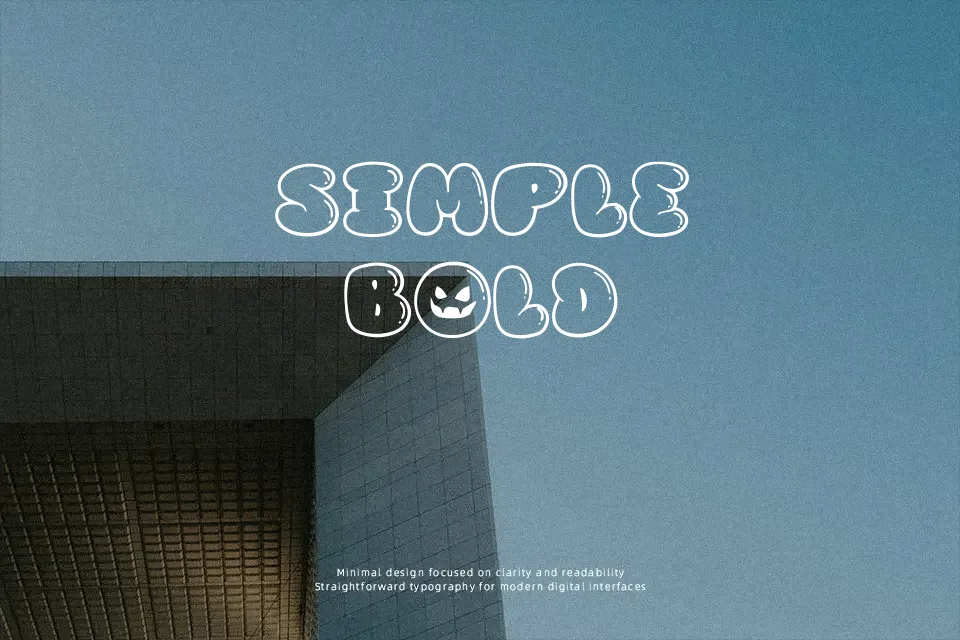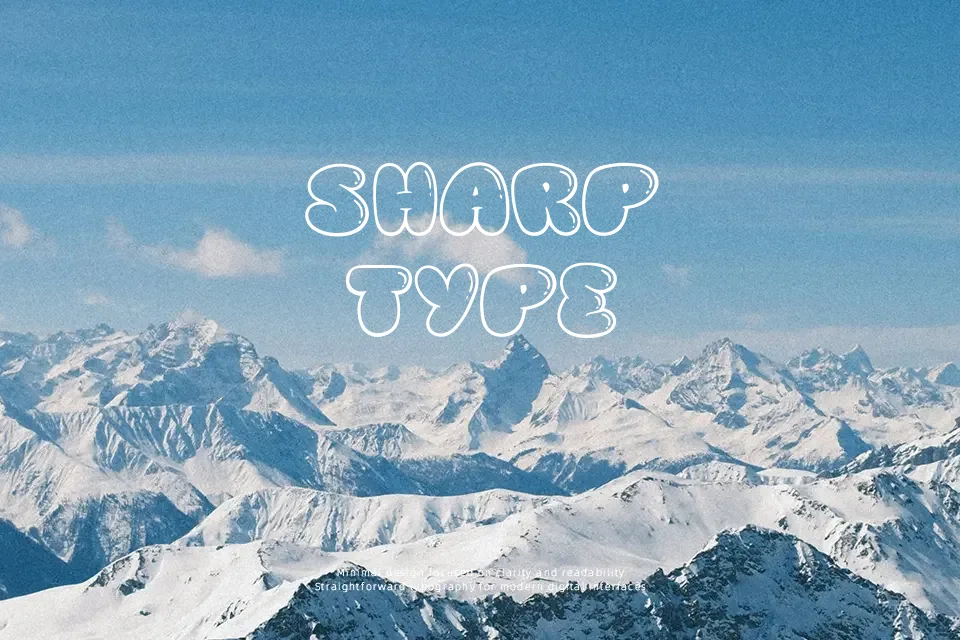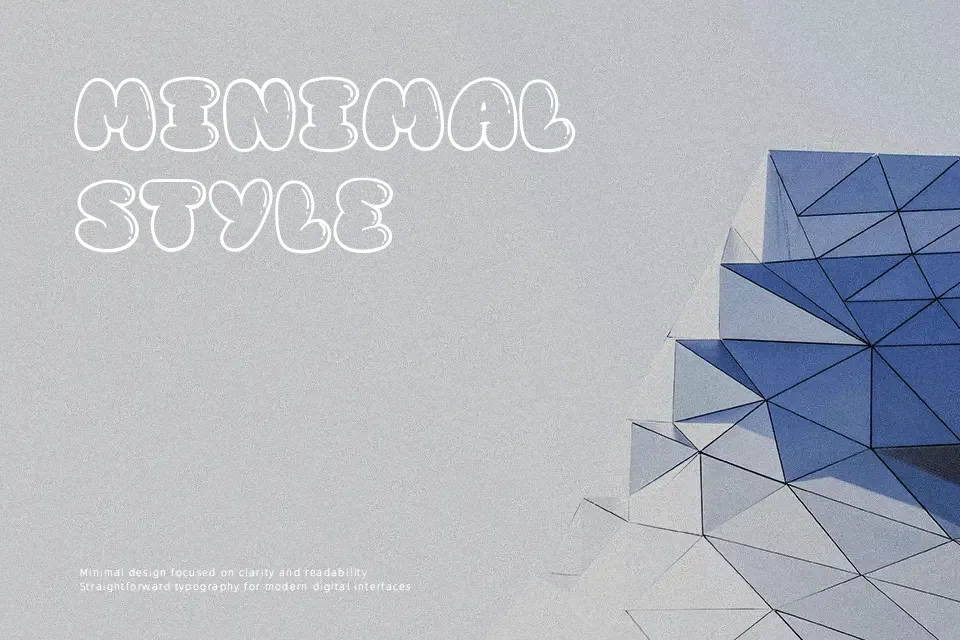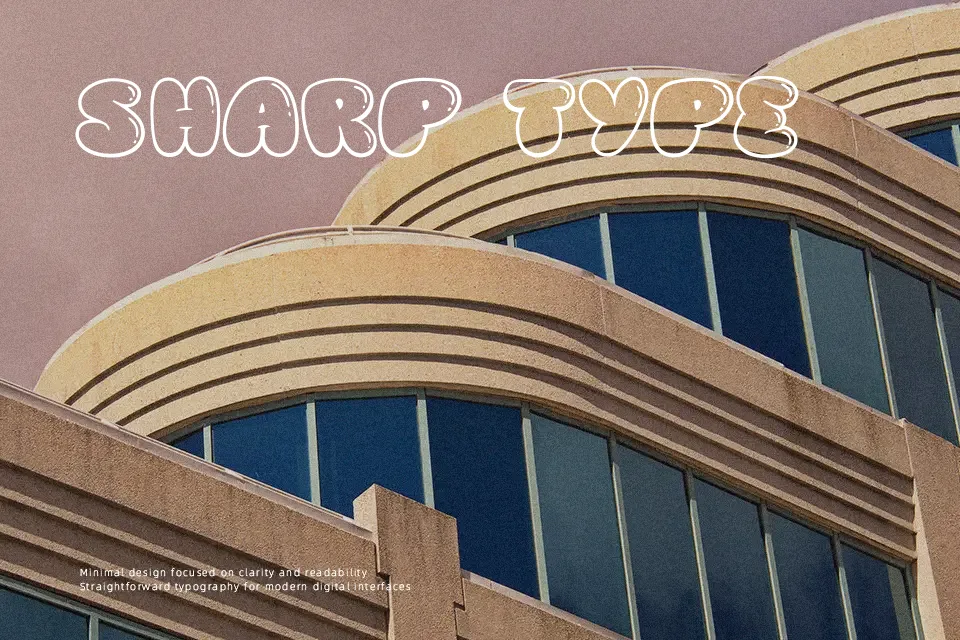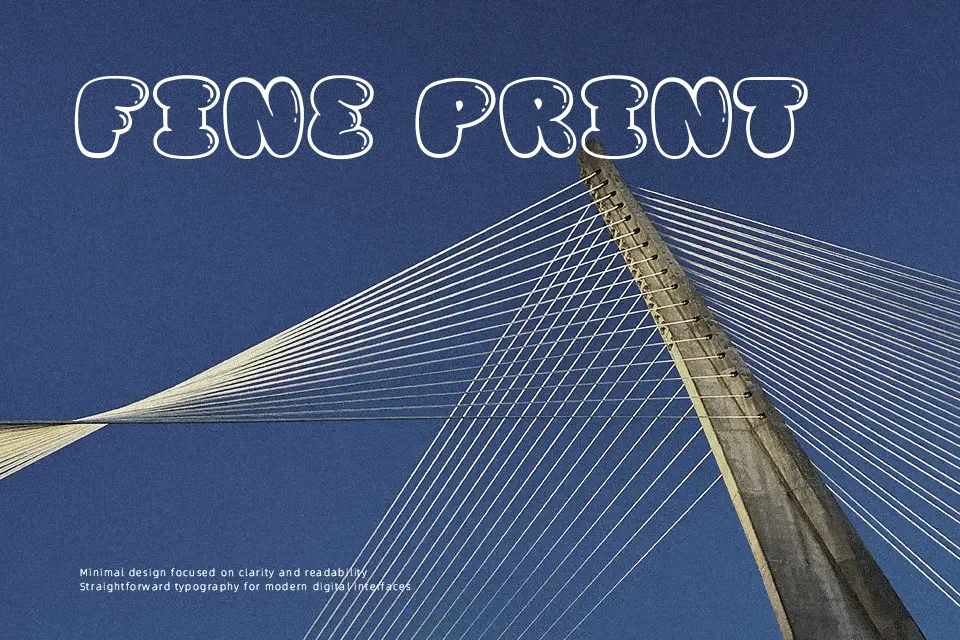
Railghost Font
Railghost Font immediately sets a casual, animated tone with its distinctive cartoon-like structure and approachable letterforms. The characters feature uneven, bouncy baselines and solid, bold strokes that easily capture attention in display settings. Its chunky proportions and rounded edges provide a friendly, slightly mischievous energy that works incredibly well for expressive headlines and informal branding. The spacing helps maintain clarity in larger typography applications, ensuring the playful forms do not blend together awkwardly. However, these highly stylized, dense forms reduce continuous reading comfort, making this typeface less suitable for long paragraphs or small text sizes. It performs exceptionally well when applied to gaming graphics, festive party invitations, children’s apparel, and eye-catching product packaging.
Best For: children’s apparel graphics, casual product packaging, event poster headlines, gaming interface titles
Not Ideal For: long paragraph text, corporate reports, small interface labels, spreadsheet data
Perfect for gaming, headline, and kids, with a creative and cartoon style.